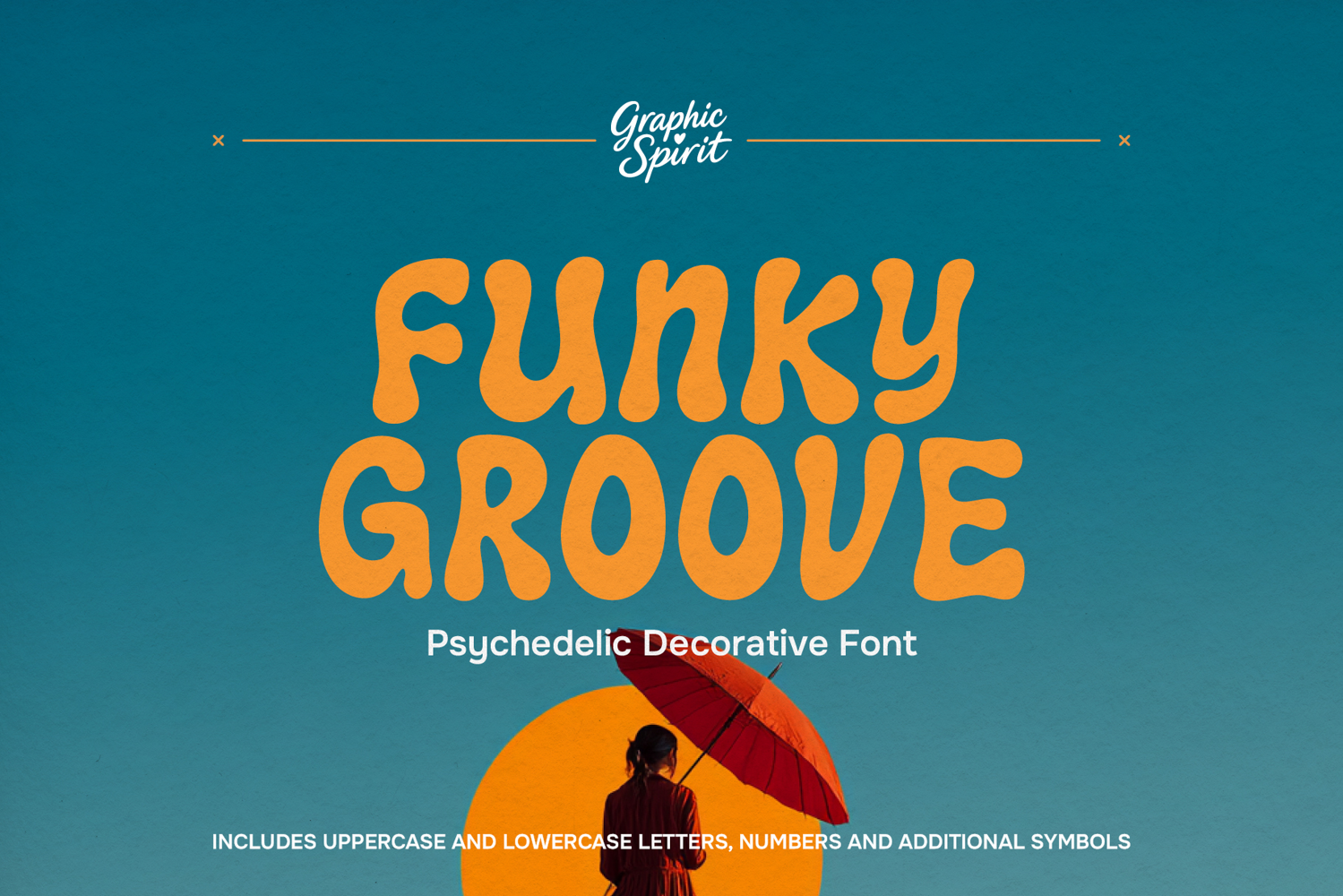
Funky Groove Psychedelic Decorative Font
🌀 Unleash your inner artist with the Funky Groove Psychedelic Font! This vibrant decorative typeface is packed with personality, featuring swirly, flowing letters and trippy details inspired by the retro 60s and 70s. Perfect for adding a unique, eye-catching touch to your creative projects, from groovy logos and festival posters to mesmerizing social media graphics and personalized merchandise.